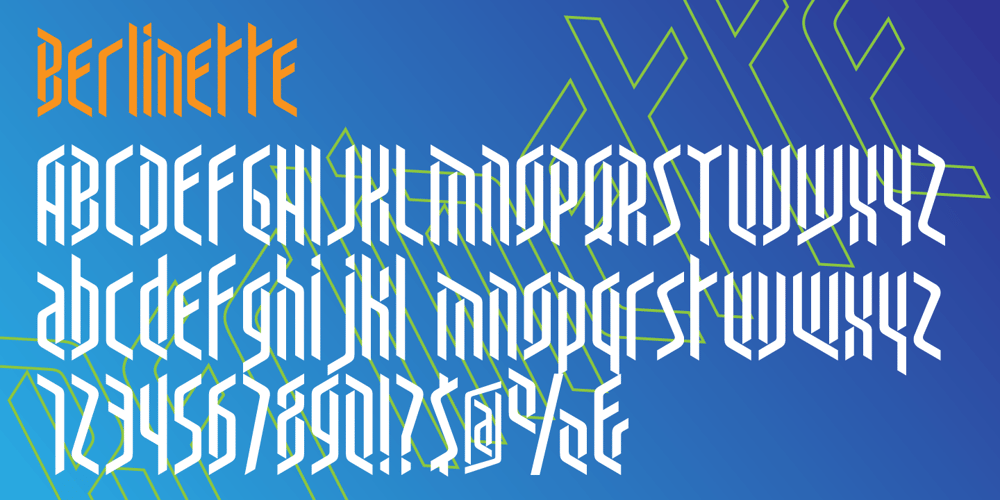
Berlinette NB Font Family was designed by George E. Thompson and published by No Bodoni. Berlinette NB contains 1 styles and family package options. These four typefaces, Berlinette NB, Lyonette NB, Marseillette NB and Parisette NB, were designed from the same basic shape, a fanciful geometric form that avoids strict horizontals and uses more offbeat triangular shapes. Berlinette is the medieval Gutenbergian version of the four. It’s like a weird black letter font from the 1930s. It would work well advertising an obscure brand of German beer on the side of a Zeppelin as it circles the soccer stadium during the last match. In a William Burroughs novel.